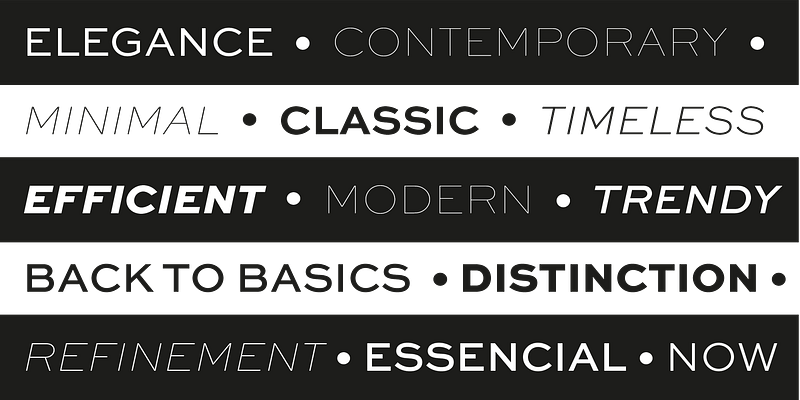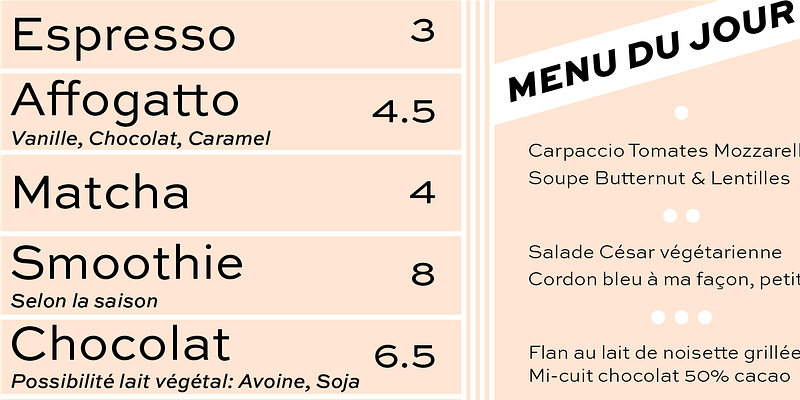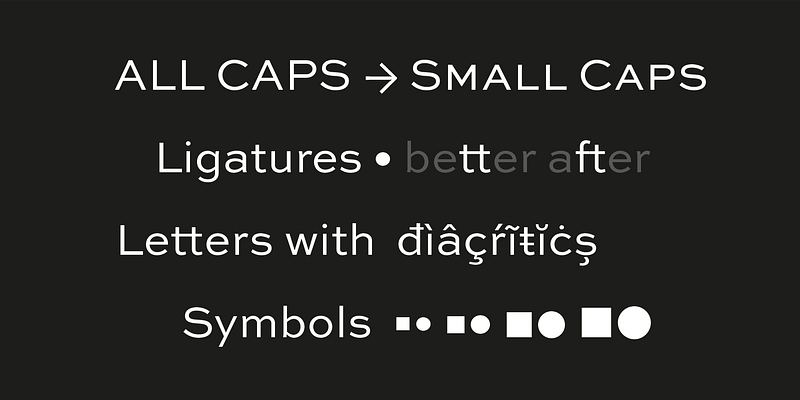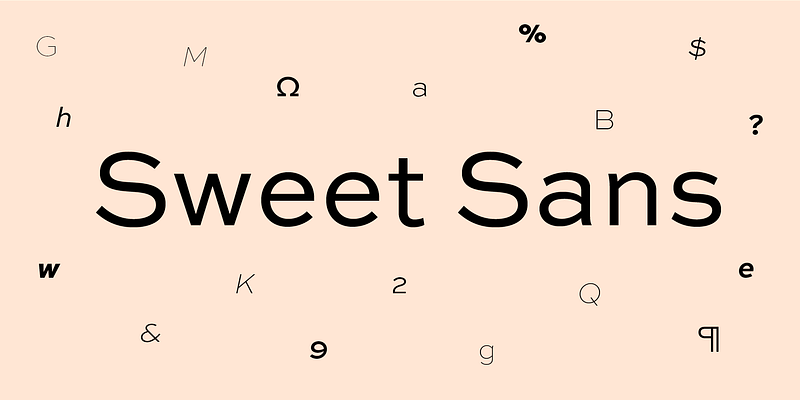
The engraver’s sans serif—strikingly similar to drafting alphabets of the early 1900s—has been one of the most widely used stationer’s lettering styles since about 1900. Its open, simple forms offer legibility at very small sizes. While there are digital fonts based on this style (such as Burin Sans and Sackers Gothic, among others), few offer the range of styles and weights possible, with the versatility designers perhaps expect from digital type families. Sweet Sans fills that void.
The family is based on antique engraver’s lettering templates called “masterplates.” Professional stationers use a pantograph to manually transfer letters from these masterplates to a piece of copper or steel that is then etched to serve as a plate or die. This demanding technique is rare today given that most engravers now use a photographic process to make plates, where just about any font will do. But the lettering styles engravers popularized during the first half of the twentieth century—especially the engraver’s sans—are still quite familiar and appealing.
Referencing various masterplates—which typically offer the alphabet, figures, an ampersand, and little else—Mark van Bronkhorst has drawn a comprehensive toolkit of nine weights, each offering upper- and lowercase forms, small caps, true italics, arbitrary fractions, and various figure sets designed to harmonize with text, small caps, and all-caps. The fonts are available as basic, “Standard” character sets, and as “Pro” character sets offering a variety of typographic features and full support for Western and Central European languages.
Though rich in history, Sweet Sans is made for contemporary use. It is a handsome and functional tribute to the spirit of unsung craftsmanship.